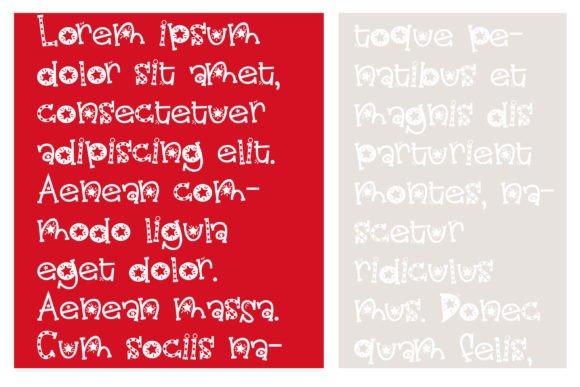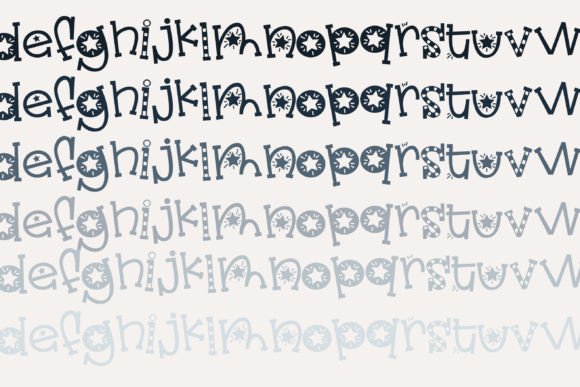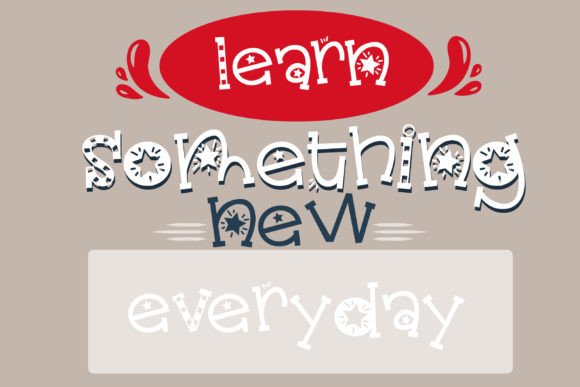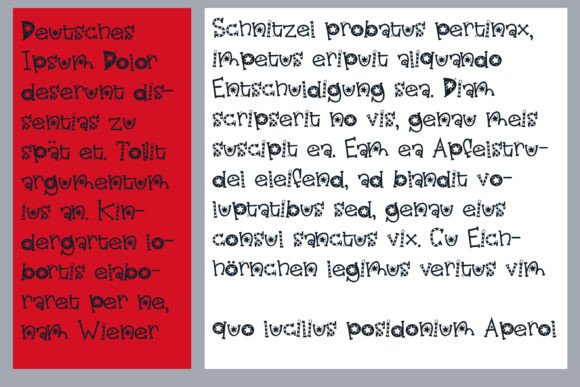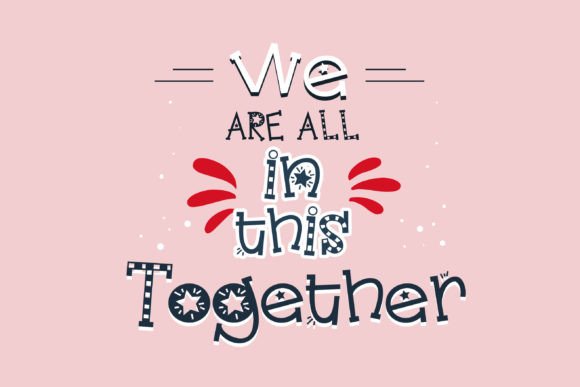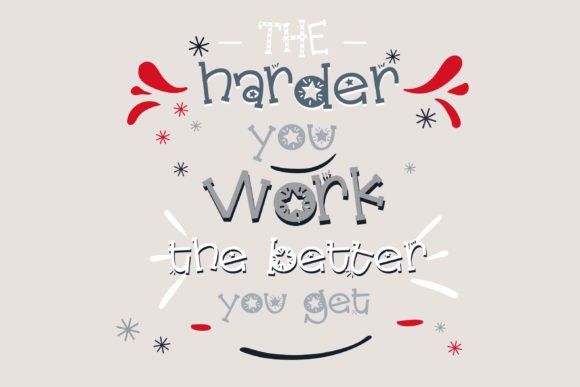
Cutesietoo Americana Font: Add a Touch of Patriotism to Your Designs
Are you looking for a font that exudes a sense of classic American charm? Look no further than Cutesietoo Americana Font! This playful font is perfect for designers and crafters who want to add a touch of patriotism to their work. In this article, we’ll take a closer look at Cutesietoo Americana Font, its features, and how you can use it to create stunning designs.
What is Cutesietoo Americana Font?
Cutesietoo Americana is a handwritten font with classic serif styling, decorated with stars and stripes for a fun and patriotic touch. The font is designed to resemble traditional American handwriting, making it perfect for creating invitations, greeting cards, and other items that require a personal touch.
Key Features of Cutesietoo Americana Font
- Playful and Patriotic: Cutesietoo Americana Font is designed to be fun and festive, making it perfect for patriotic designs, such as Fourth of July or Memorial Day projects.
- Classic Serif Styling: The font features classic serif styling, which gives it a timeless and traditional look.
- Stars and Stripes Decoration: The font is decorated with stars and stripes, adding a touch of American charm to your designs.
- Handwritten Style: Cutesietoo Americana Font is a handwritten font, which makes it perfect for creating personalized and informal designs.
Uses of Cutesietoo Americana Font
Cutesietoo Americana Font is a versatile font that can be used for a variety of purposes, including:
- Invitations: Use Cutesietoo Americana Font to create patriotic invitations for parties, events, or celebrations.
- Greeting Cards: The font is perfect for creating handmade greeting cards for special occasions, such as birthdays, holidays, or thank-you notes.
- Signs and Banners: Cutesietoo Americana Font can be used to create eye-catching signs and banners for events, parties, or promotions.
- Digital Designs: The font can be used in digital designs, such as social media graphics, blog posts, or website headers.
Tips for Using Cutesietoo Americana Font
Here are some tips for using Cutesietoo Americana Font in your designs:
- Pair with Other Fonts: Cutesietoo Americana Font pairs well with other fonts, such as sans-serif fonts or script fonts. Experiment with different font combinations to create unique designs.
- Use in Combination with Images: The font looks great when paired with images, such as patriotic icons, flowers, or other graphics.
- Experiment with Colors: Cutesietoo Americana Font can be used with a variety of colors, including red, white, and blue, to create a patriotic look.
Cutesietoo Americana Font is a fun and playful font that adds a touch of patriotism to any design. With its classic serif styling, stars and stripes decoration, and handwritten style, it’s perfect for creating invitations, greeting cards, and other items. Whether you’re a designer or crafter, Cutesietoo Americana Font is a great addition to your font collection. So why not give it a try and see how you can use it to create stunning designs?
- What is Cutesietoo Americana Font? Cutesietoo Americana Font is a handwritten font with classic serif styling, decorated with stars and stripes for a fun and patriotic touch.
- What is Cutesietoo Americana Font used for? Cutesietoo Americana Font is often used for invitations, greeting cards, and other items that require a personal touch.